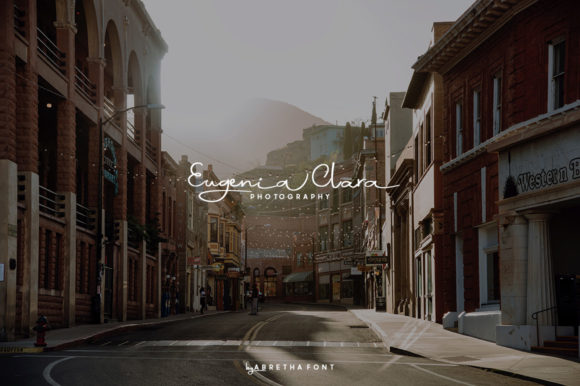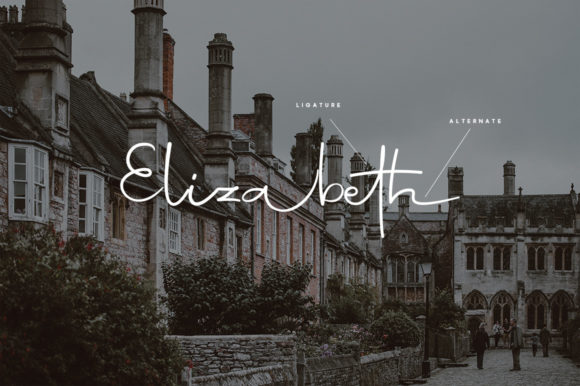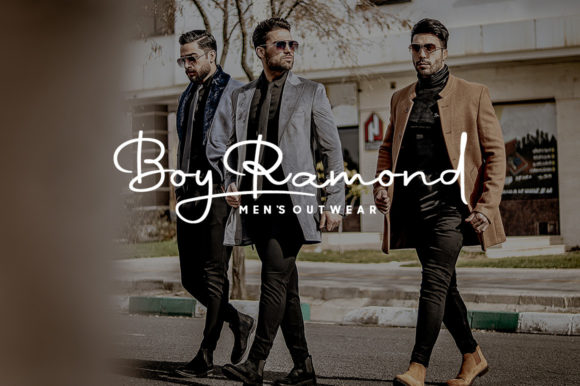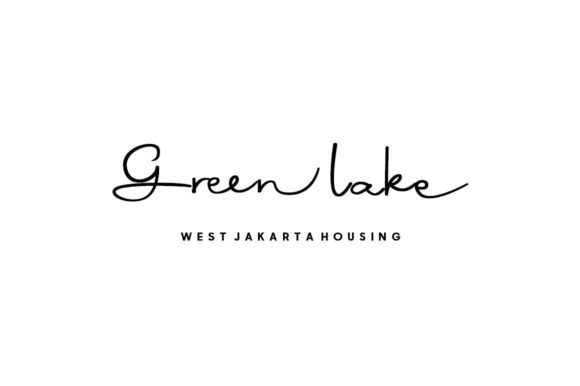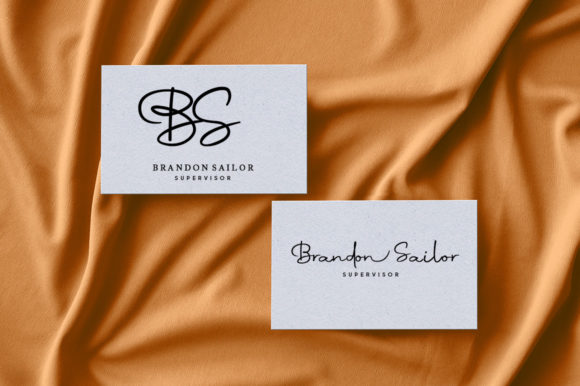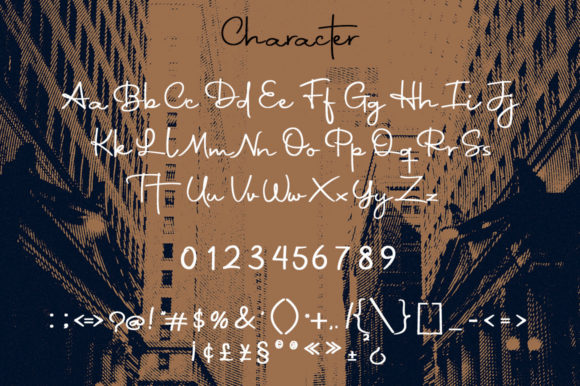
The Elegance of Abretha Font: A Designer’s New Best Friend
I’ll never forget the time I was working on a wedding design project, and my client asked for a font that was elegant, slim, and had a handwriting taste. I scoured the internet, tried countless fonts, but nothing seemed to fit the bill. That was until I stumbled upon Abretha Font. ✨ It was love at first sight! In this article, I’ll share my experience with Abretha, its features, and how to make the most of it in your designs.
Abretha Font: A Personal Review
- ✨ Slim and elegant script font perfect for branding projects, logos, wedding designs, social media posts, and more.
- 🌈 Versatile and can be used for a variety of projects, from product packaging to advertisements.
- 👍 Easy to read and understand, making it perfect for body text and headings.
While Abretha Font is an excellent choice, there are a few things to keep in mind: 🤔
- ⚠️ Limited use in very small sizes – Abretha’s elegance shines best in larger sizes.
- ⚠️ Some swashes might not work well in certain contexts, so experimentation is key.
The Story Behind Abretha Font
Abretha Font was designed with elegance and versatility in mind. While I couldn’t find a direct statement from the designer, it’s clear that Abretha was crafted to be a go-to font for creative projects that require a touch of sophistication. 💫
Q: Is Abretha Font suitable for body text?
A: While Abretha Font is elegant and easy to read, it’s best suited for headings and titles. For body text, you may want to choose a font with better readability. 📚